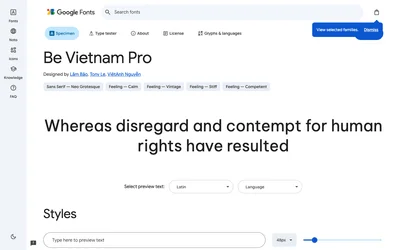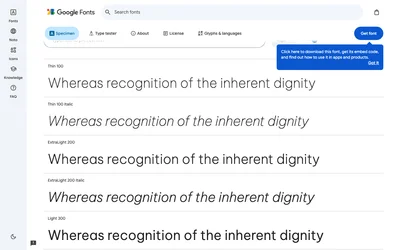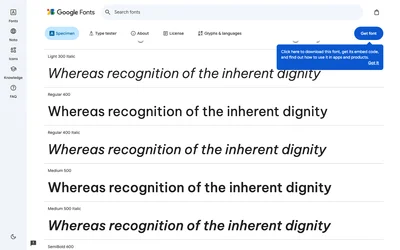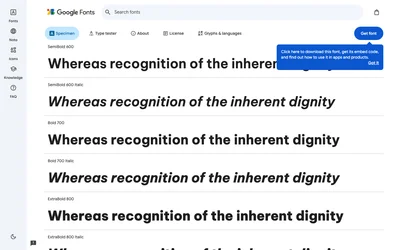
Be Vietnam Pro vs Supreme
Supreme is a popular open-source alternative to Be Vietnam Pro's geometric design. At 68% similarity, Supreme delivers a modern, clean aesthetic. Compare which works better for ui and branding projects.
Design overlap:67%
| Feature | Be Vietnam Pro | Supreme |
| Variable Font | No | Yes |
| Weights | Multiple | Variable (100-900) |
| Language Support | latin, latin-extended, vietnamese | latin, latin-extended |
- Shares Be Vietnam Pro's modern, minimal character
- Variable font with continuous weight adjustment
- Delivers a modern, clean, contemporary aesthetic
- Popular in enterprise-corporate design
- Designed specifically for ui and branding